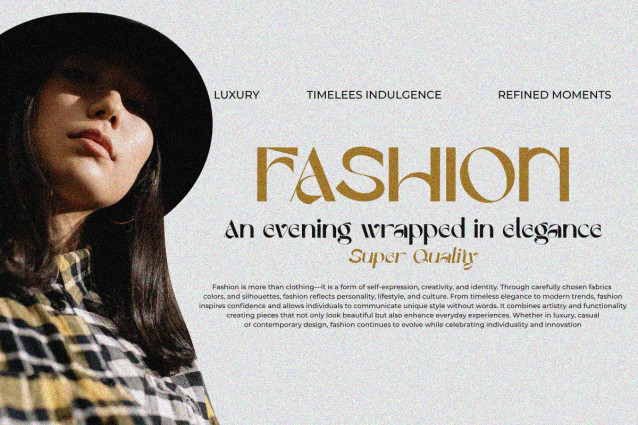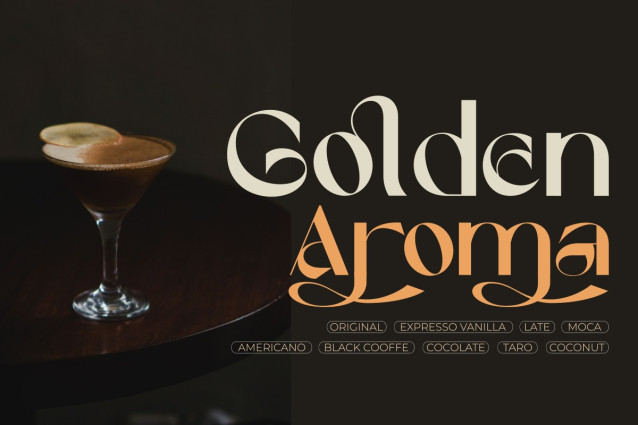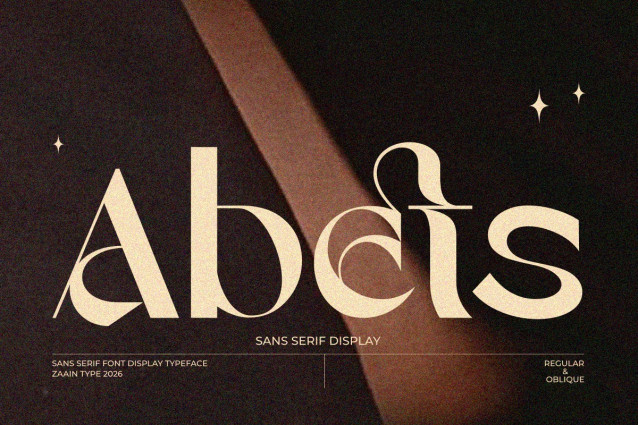
Abets Font
Abets Font is a modern sans serif typeface crafted with clean lines, balanced proportions, and a refined contemporary aesthetic. Designed to deliver clarity and versatility, Abets seamlessly adapts to a wide range of creative applications, from branding and logo design to editorial layouts, packaging, advertising, and digital content.
Its minimalist character brings a professional yet approachable feel, while the carefully constructed letterforms ensure excellent readability across both large headlines and body text. Whether used for corporate identities, fashion campaigns, lifestyle brands, or modern marketing materials, Abets provides a timeless visual presence that enhances every design with confidence and sophistication.
With its sleek appearance and adaptable style, Abets is the perfect choice for designers seeking a sans serif font that combines simplicity, elegance, and modern functionality
| Designer Name: | Zaain Type |